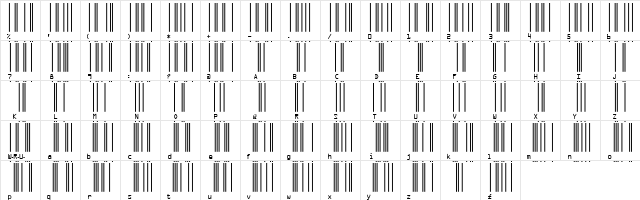
MC morse_VanDuuren_7_Unit BC Regular
| Designer | Marek Cerajewski |
Design Context for MC morse_VanDuuren_7_Unit BC Typeface
MC morse_VanDuuren_7_Unit BC takes a measured approach to typography — its balanced proportions and neutral character make it a reliable workhorse for both digital and print work.